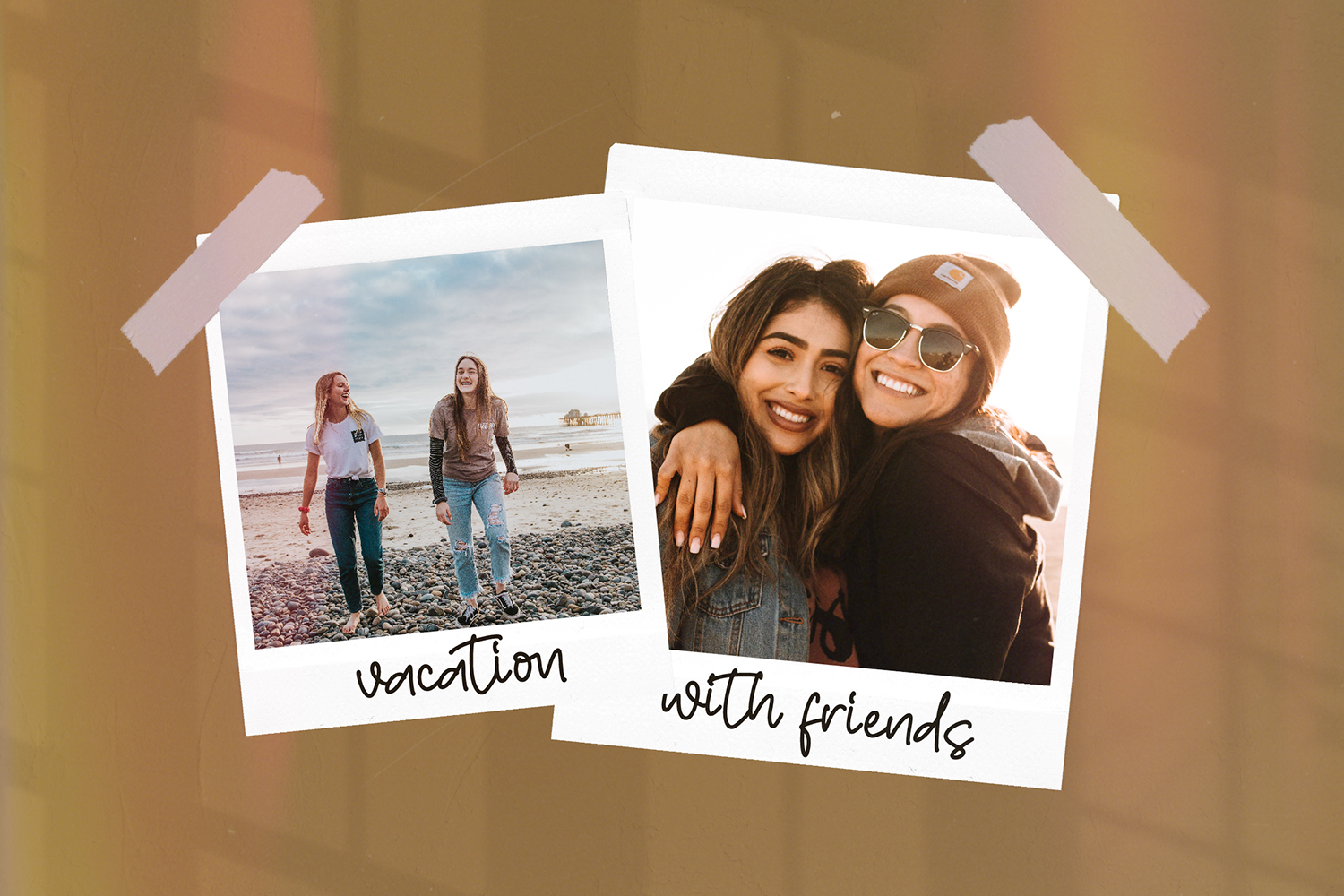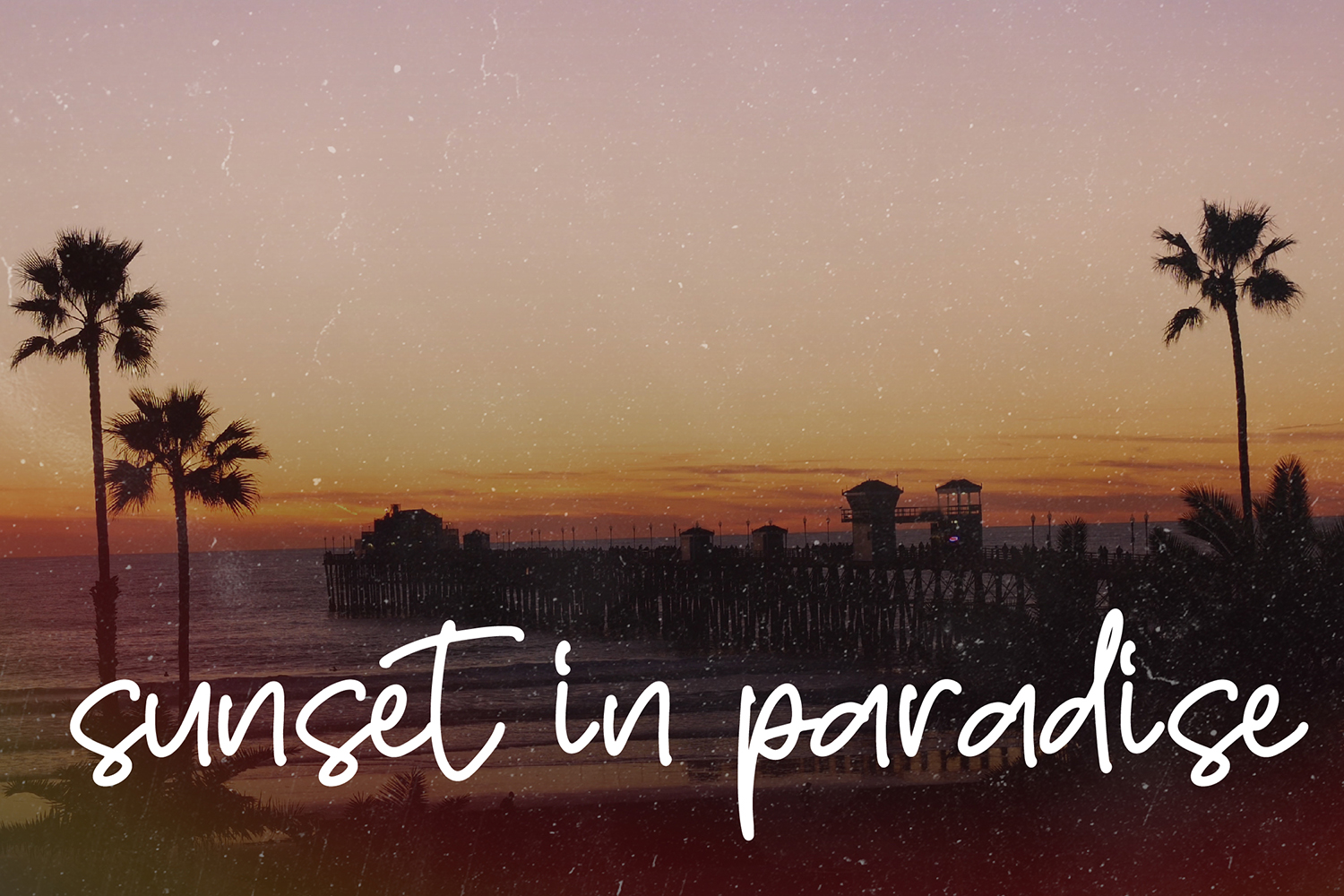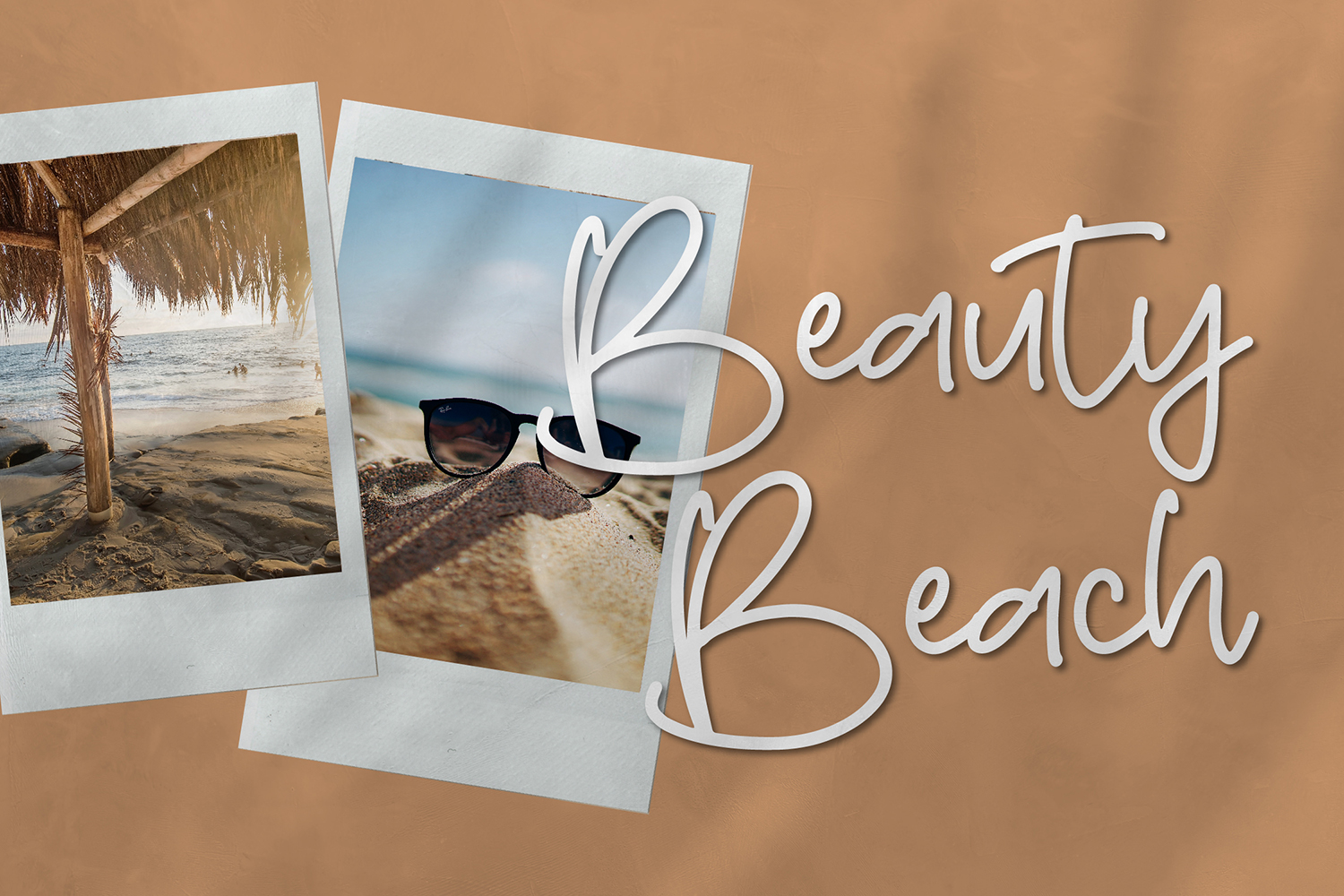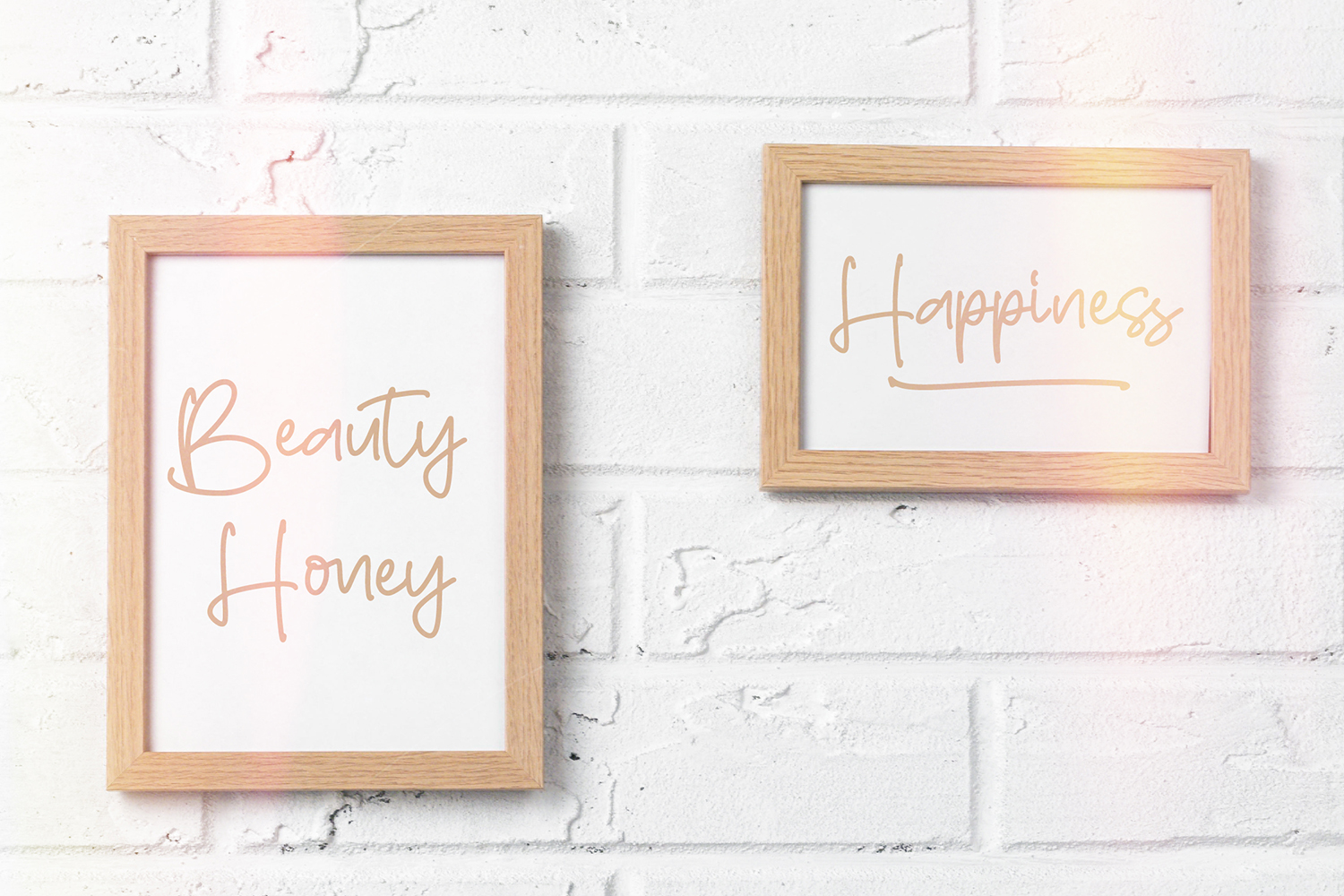
Gollden Hourse Free Font
Introducing Gollden Hourse Free Font, a versatile monoline script font perfect for an array of projects. Whether it’s logos, branding initiatives, homeware designs, product packaging, mugs, quotes, posters, shopping bags, t-shirts, book covers, name cards, invitation cards, greeting cards, labels, photography, watermarks, special events, or any other creative endeavor, Gollden Hourse adds a touch of beautiful script sophistication to all your lovely projects. This free typeface was designed by a talented Glorytype Studio. If you like it don’t forget to check out the full version.